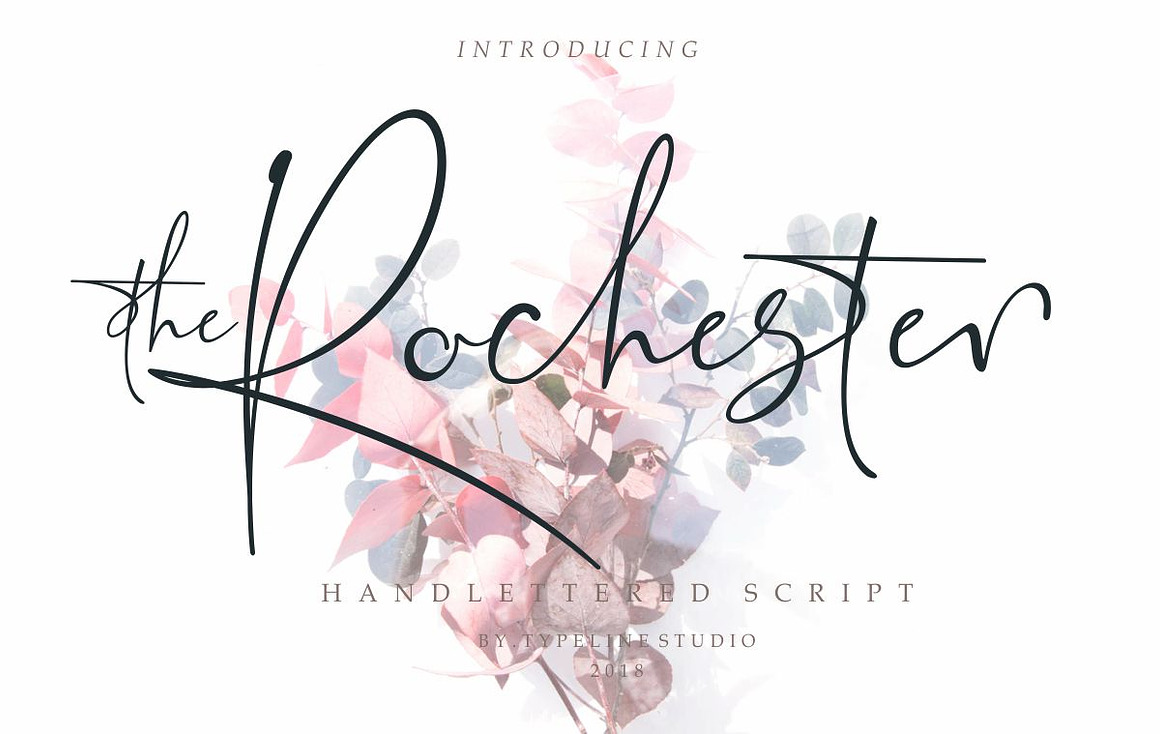
the Rochester // Beatiful Signature Font
The the Rochester // Beautiful Signature Font excels in sophisticated design applications including luxury wedding invitations, high-end fashion branding, elegant business cards, boutique logos, premium product packaging, romantic greeting cards, upscale restaurant menus, artistic certificates, social media quotes, and refined website headers. Its graceful script style makes it perfect for projects requiring sophisticated elegance that communicates refinement and timeless beauty.
What makes the the Rochester // Beautiful Signature Font truly exciting is its exceptional balance of classic elegance and contemporary appeal. The font features flowing, interconnected letterforms with delicate flourishes and graceful curves that create an atmosphere of luxury and sophistication. Each character displays masterful craftsmanship with carefully considered proportions, smooth connections, and elegant ascenders and descenders that give text an aristocratic quality while remaining thoroughly modern and accessible.
The the Rochester // Beautiful Signature Font family typically includes regular weight with extensive character coverage, featuring uppercase and lowercase letters, numerals, punctuation marks, and international glyphs. The typeface often incorporates stylistic alternates, contextual ligatures, and ornamental swashes that enhance its beautiful script appearance. These additional elements provide designers with creative flexibility to customize text and achieve more natural-looking handwritten elegance.
This premium signature font distinguishes itself through its remarkable versatility and stunning visual impact. Unlike overly decorative scripts that can appear cluttered or difficult to read, the Rochester // Beautiful Signature Font maintains perfect legibility while delivering breathtaking beauty. The font's sophisticated character makes it equally suitable for intimate personal projects and high-profile commercial applications where elegance and professionalism are essential.
The the Rochester // Beautiful Signature Font Free Download presents designers with an outstanding opportunity to elevate their creative projects with unparalleled elegance. Whether crafting luxury brand identities, designing memorable wedding materials, or creating sophisticated digital content, this font delivers the beautiful script aesthetic that discerning audiences appreciate. Its timeless appeal ensures your designs remain elegant and relevant across changing design trends.